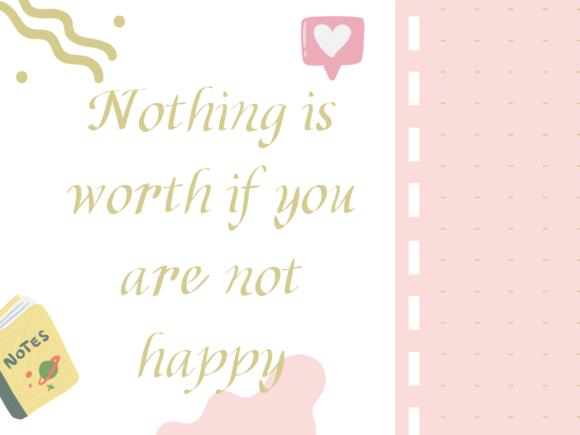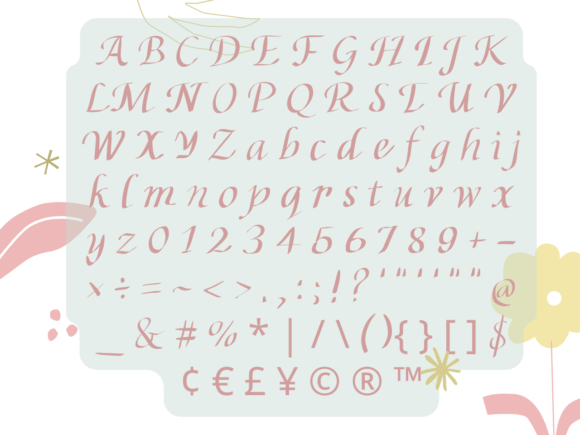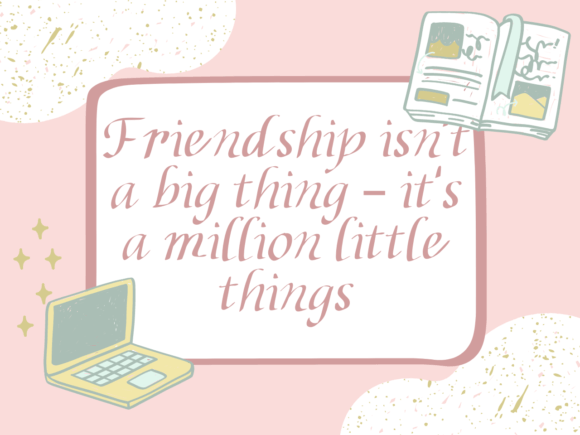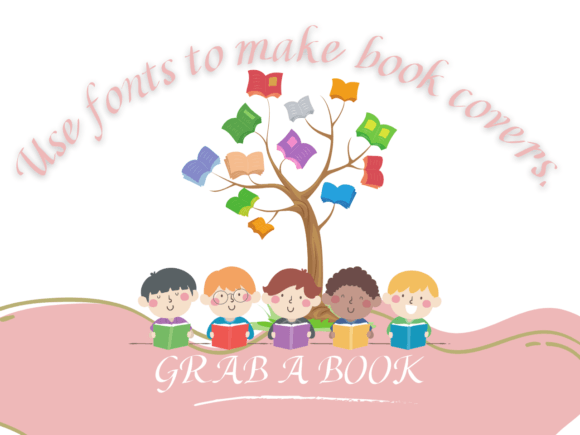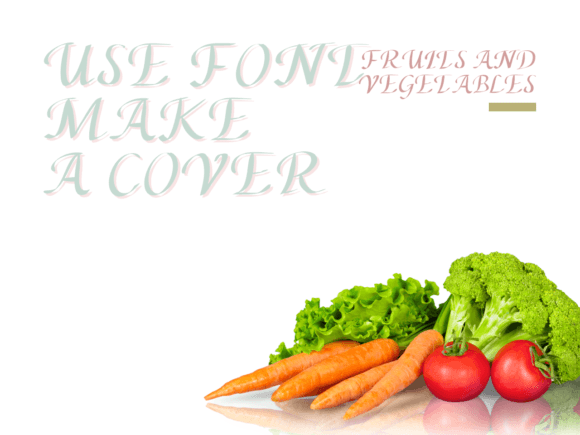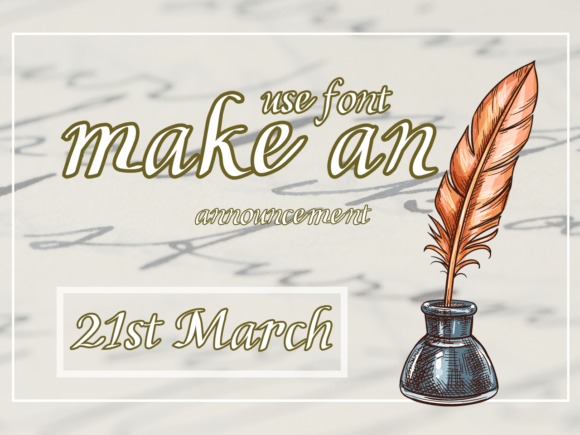
Introducing Edward Font: Elevate Your Designs with Elegance and Sophistication
In the world of design, the right font can make all the difference. It’s not just about conveying a message; it’s about doing so with style and impact. For designers, crafters, and businesses looking to elevate their visual identity, Edward Font emerges as a game-changer. This fresh and beautiful font is specifically designed to enhance your design projects, whether it’s for a YouTube banner, logo mockups, wedding invitations, ID cards, flyers, or crafts.
The Versatility of Edward Font
Edward Font stands out due to its versatility. Its elegant and sophisticated design makes it suitable for a wide range of applications. Here are some of the key areas where Edward Font can make a significant impact:
- YouTube Banners and Covers: For content creators looking to establish a strong brand presence on YouTube, Edward Font offers a stylish solution. Its readability and aesthetic appeal make it perfect for banners and covers that need to capture viewers’ attention.
- Logo Mockups: A logo is often the first impression of a brand. With Edward Font, designers can create stunning logo mockups that exude professionalism and creativity.
- Wedding Invitations: For those planning their special day, Edward Font provides an elegant touch to wedding invitations. Its beautiful design ensures that your invitations are memorable and set the tone for your event.
- ID Cards and Flyers: Whether it’s for business, events, or identification purposes, Edward Font’s clarity and beauty make it an excellent choice for ID cards and flyers.
- Crafts and DIY Projects: Crafters will love Edward Font for its ability to add a personal and artistic touch to DIY projects, making them stand out.
Why Choose Edward Font?
With so many fonts available, why should Edward Font be your go-to choice? Here are a few compelling reasons:
- Unique and Fresh Design: Edward Font brings a unique and fresh perspective to the world of typography. Its design is both contemporary and timeless, making it versatile for various design needs.
- Ease of Use: This font is incredibly easy to use, even for those who are new to design. Its clear and readable style ensures that your message is communicated effectively.
- Professional and Personal Projects: Whether you’re working on a professional project or a personal craft, Edward Font adapts seamlessly, providing a touch of elegance and sophistication.
- Business Growth: By incorporating Edward Font into your business’s visual identity, you’re investing in a tool that can help your business progress and develop. A well-designed visual identity can attract more customers, enhance brand recognition, and set you apart from competitors.
How to Use Edward Font Effectively
To maximize the potential of Edward Font, consider the following tips:
- Pair it with Complementary Fonts: For maximum effect, pair Edward Font with fonts that complement its style. This will create a harmonious and visually appealing design.
- Experiment with Sizes and Colors: Don’t be afraid to experiment with different sizes and colors. Edward Font’s versatility shines when you play around with its various design elements.
- Keep it Simple: While Edward Font is beautiful and decorative, ensure that your overall design remains clear and easy to read. Balance is key to effective design.
| Author | Pukka De |
Edward Font is more than just a font; it’s a design solution that can elevate your projects to new heights. Its beauty, versatility, and ease of use make it an invaluable tool for designers, crafters, and businesses alike. By incorporating Edward Font into your design repertoire, you’re not just enhancing your visual identity; you’re also opening up new possibilities for creativity and growth. So, why wait? Explore the potential of Edward Font today and witness the transformation it brings to your designs.